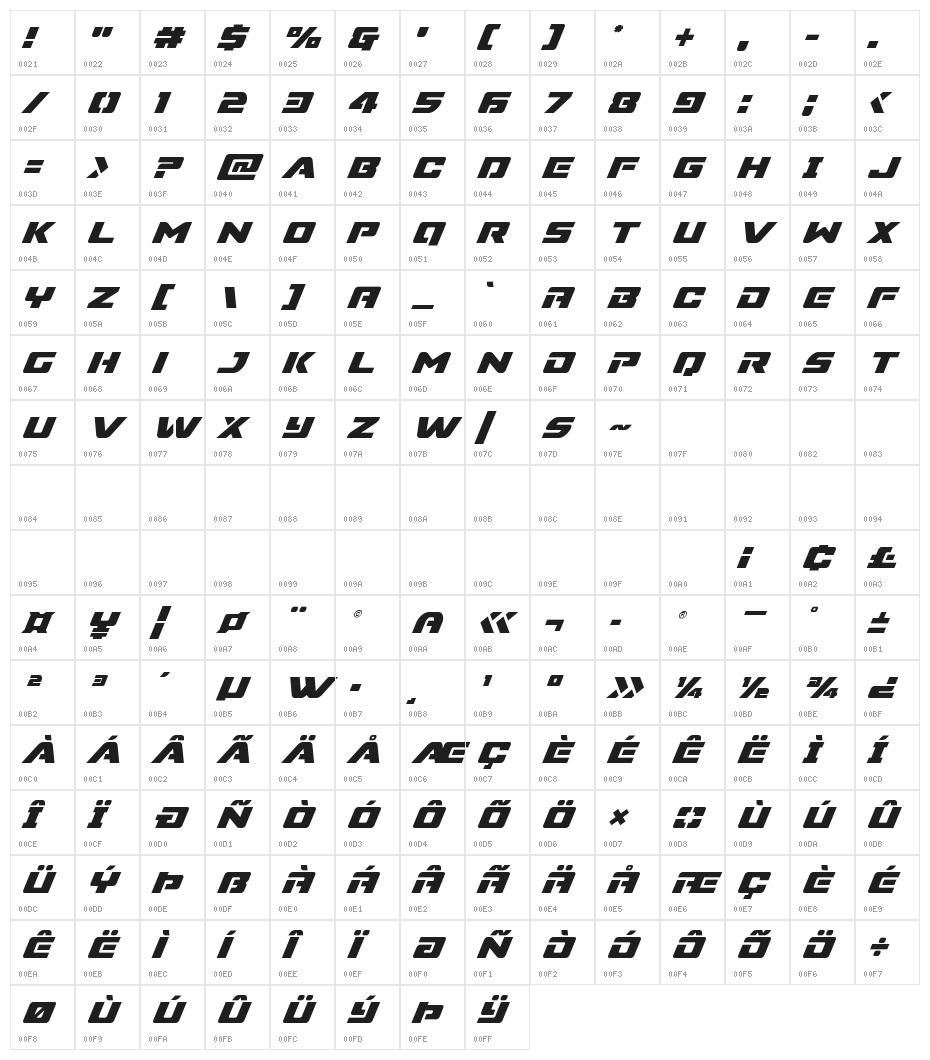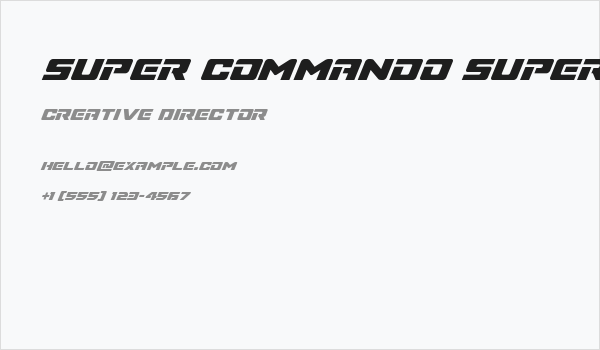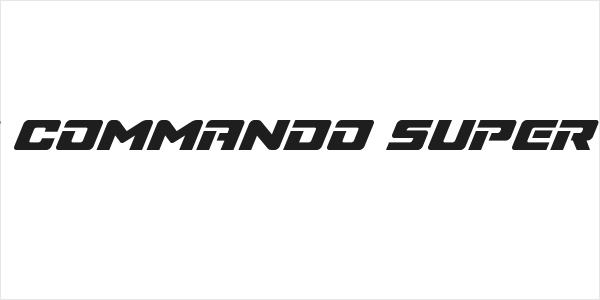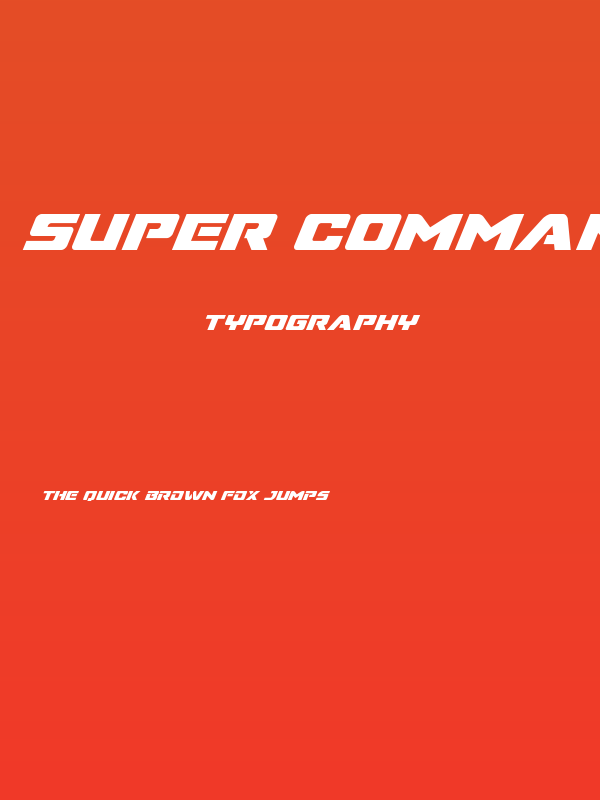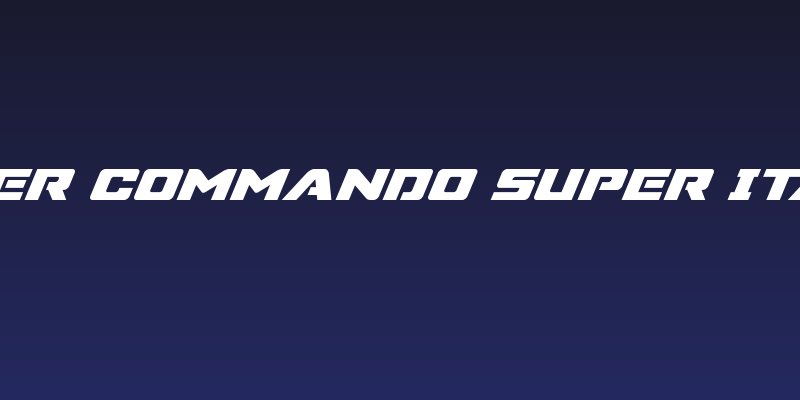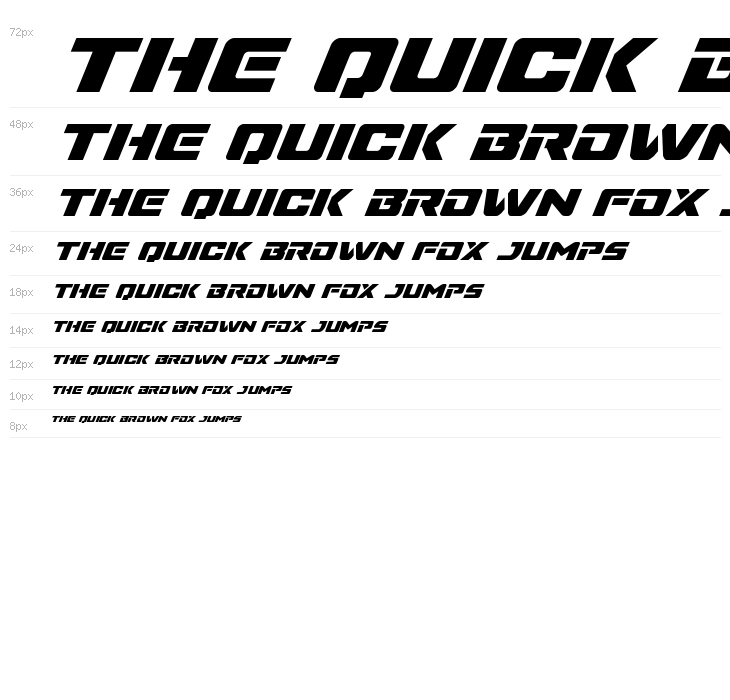
Super Commando Super Italic Font
Super Commando Super Italic Description
This font features a bold and dynamic style with a strong italic slant, giving it a sense of motion and energy. The characters are designed with sharp angles and a futuristic aesthetic, making it ideal for projects that require a modern and edgy look. The uppercase and lowercase letters maintain a consistent style, with the uppercase being particularly striking. Numbers and special characters are equally bold, ensuring uniformity across all text elements. The font's design is perfect for capturing attention and conveying a sense of speed and power.
| Proposed Projects | Ideal for sports branding, action movie posters, video game titles, and automotive advertisements. |